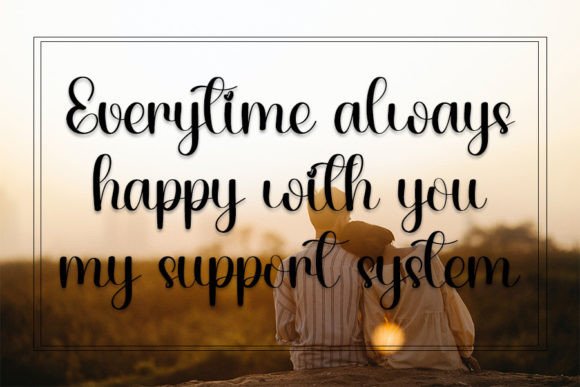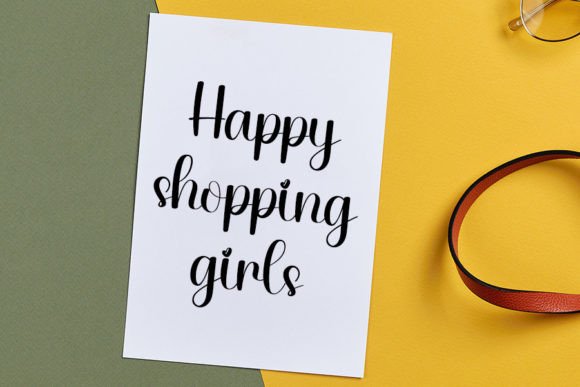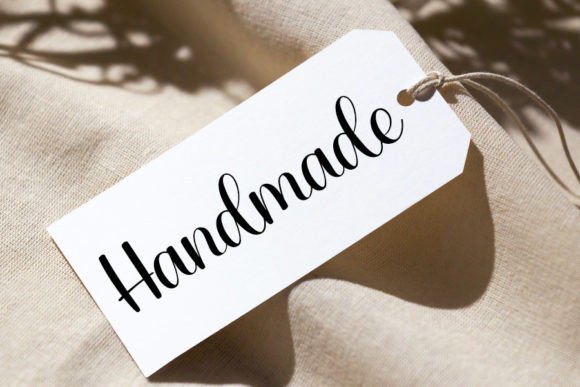
Adding a Touch of Elegance to Your Designs
As a designer, there’s nothing quite like the thrill of bringing a new project to life. You’ve poured over inspiration, brainstormed ideas, and finally settled on the perfect concept. But what really makes your design stand out? For many creatives, it’s all about the details – the subtle nuances that elevate a design from good to great. That’s where the Holidays Font comes in, a stylish handwritten font that adds a touch of sophistication to any project.
With its contemporary atmosphere and impeccable form, the Holidays Font is the perfect choice for designers looking to add a little extra flair to their work. Inspired by timeless classic calligraphy, this font is sure to bring a sense of elegance and refinement to any design project.
Holidays Font Key Features
- Font Family: Holidays Font is a unique, hand-drawn font family that features a festive and playful design.
- Font Size: Available in 4 different font sizes: Holidays Font Regular, Holidays Font Bold, Holidays Font Italic, and Holidays Font Bold Italic.
- Characteristics: Features a range of festive and holiday-themed characters, including ornaments, icons, and symbols, making it ideal for holiday-themed designs.
Holidays Font Review
Overall, I think the Holidays Font is a nice addition to any project, but it’s not without its flaws. Let’s dive into the good and the bad.
- Unique aesthetic: The Holidays Font has a distinct, playful feel to it that’s perfect for projects with a festive or celebratory theme.
- High-quality vector graphics: The font’s vector graphics are crisp and clear, making it ideal for high-resolution prints and digital displays.
- Customizable: The font comes with a range of customization options, including color and size adjustments, allowing designers to tailor it to their project’s specific needs.
- Not ideal for body text: While the Holidays Font is perfect for headings and titles, it’s not the most readable font for body text due to its playful, decorative nature.
- Limited character set: The font’s character set is relatively small, which may limit its use in projects that require a wide range of special characters.
Overall, I’d say the Holidays Font is a great choice for designers looking to add some festive flair to their projects, but it’s not a one-size-fits-all solution. Use it wisely and with caution, and you’ll be sure to get the most out of this unique font.
The Holidays Font is ideal for designing festive and seasonal materials, such as:
- Christmas and New Year’s cards
- Thanksgiving and Halloween decorations
- Summer and winter holiday advertisements
Remember to adjust the font size and color to match the tone and style of your design.